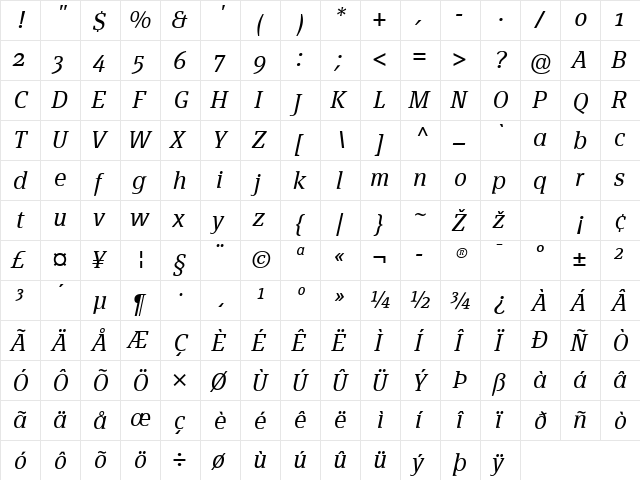
PageSerif-LightItalic Regular Font Preview
| Foundry | Albert Boton, published by FontShop International for the FontFont Library |
| Designer | Albert Boton |
Design Context for PageSerif-LightItalic Typeface
PageSerif-LightItalic brings classic typographic sensibility to the table — its serifs and measured letterforms reflect centuries of print heritage. Its italic angle brings a sense of urgency and motion to the letterforms. The delicate stroke weight brings airiness and refinement to layouts.
Pro Tip: Set PageSerif-LightItalic at slightly larger body copy sizes than you would a regular-weight serif to compensate for its delicate stroke contrast.